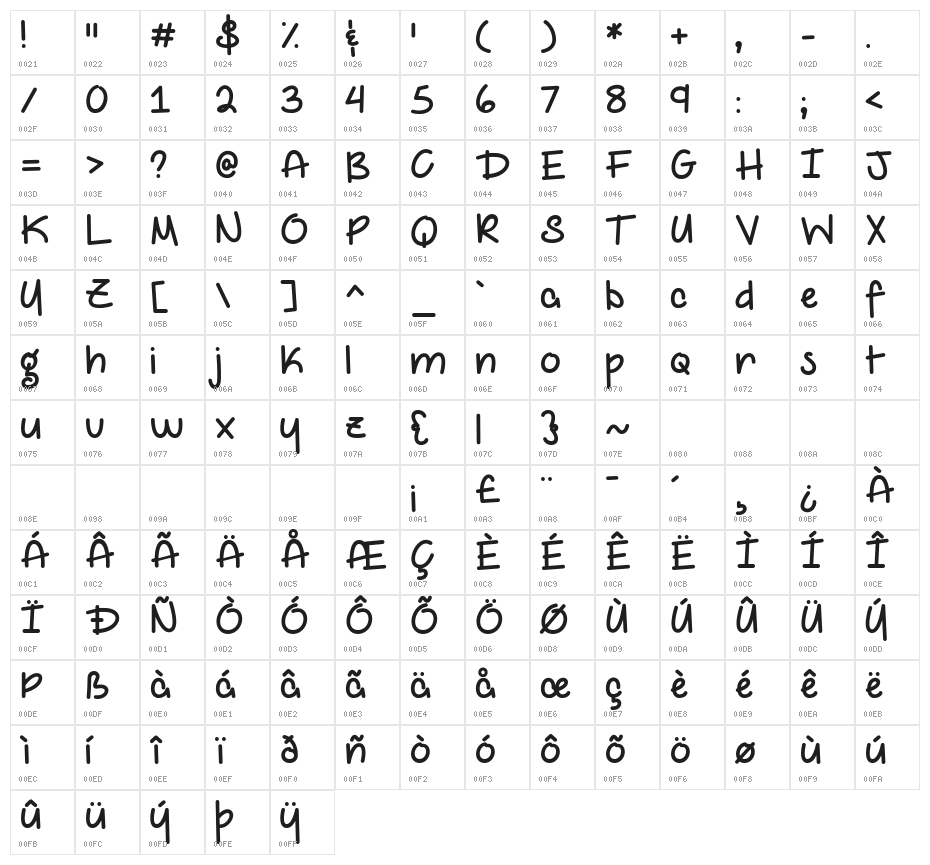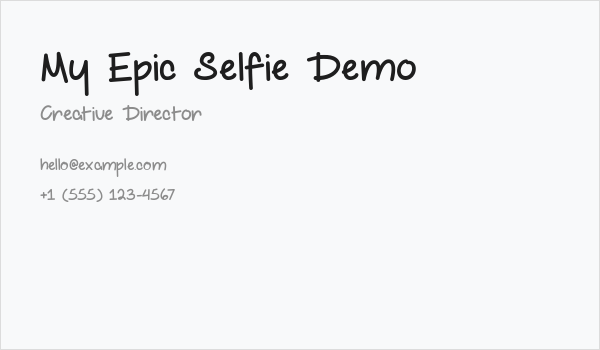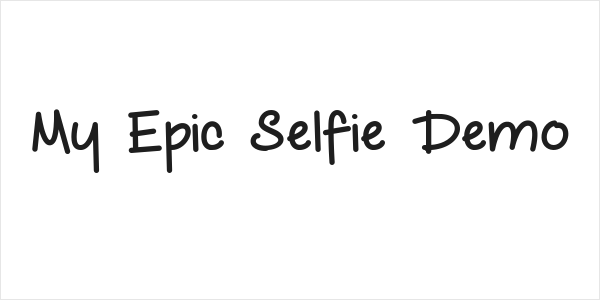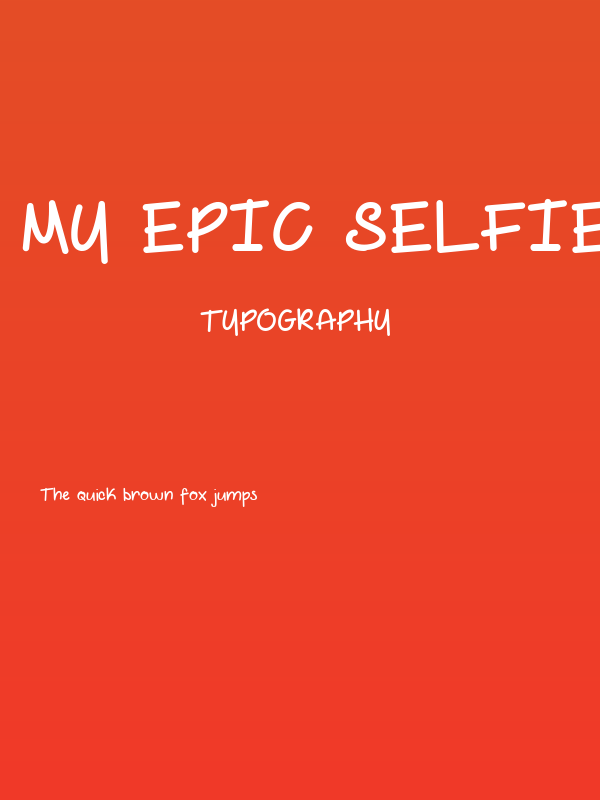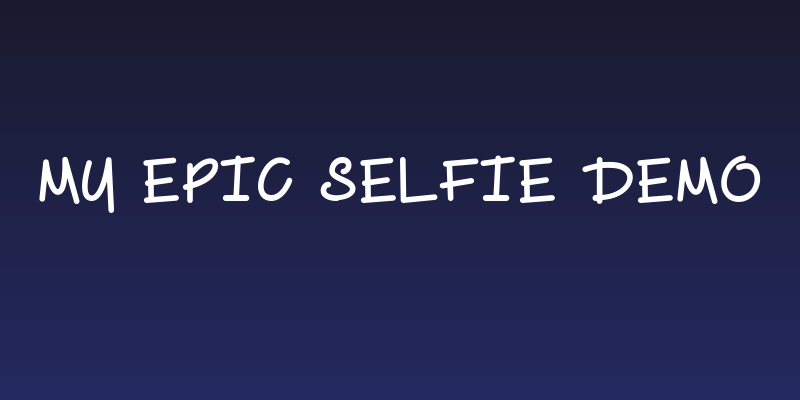
My Epic Selfie Demo Font
My Epic Selfie Demo Description
This playful and casual font features a handwritten style with a friendly and approachable appearance. The characters are rounded and slightly irregular, giving it a personal touch that mimics natural handwriting. The uppercase and lowercase letters maintain a consistent style, with smooth curves and a slight tilt that adds to its informal charm. The numerals and special characters are designed to match the overall aesthetic, ensuring a cohesive look across all text. This font is perfect for projects that require a personal, human touch, such as invitations, greeting cards, or playful branding materials.
Overall StyleCasual
Use CaseHeadlines, Logos, Informal Text
Proposed ProjectsIdeal for invitations, greeting cards, playful branding, and personal projects.